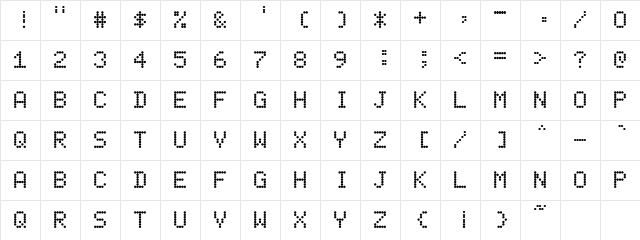
Receipt Demo Regular Font Preview
Receipt Demo Regular
Receipt Demo Regular Font Details
Design Context for Receipt Demo Typeface
Receipt Demo is a composed and adaptable typeface that performs quietly and consistently across a wide range of design contexts.